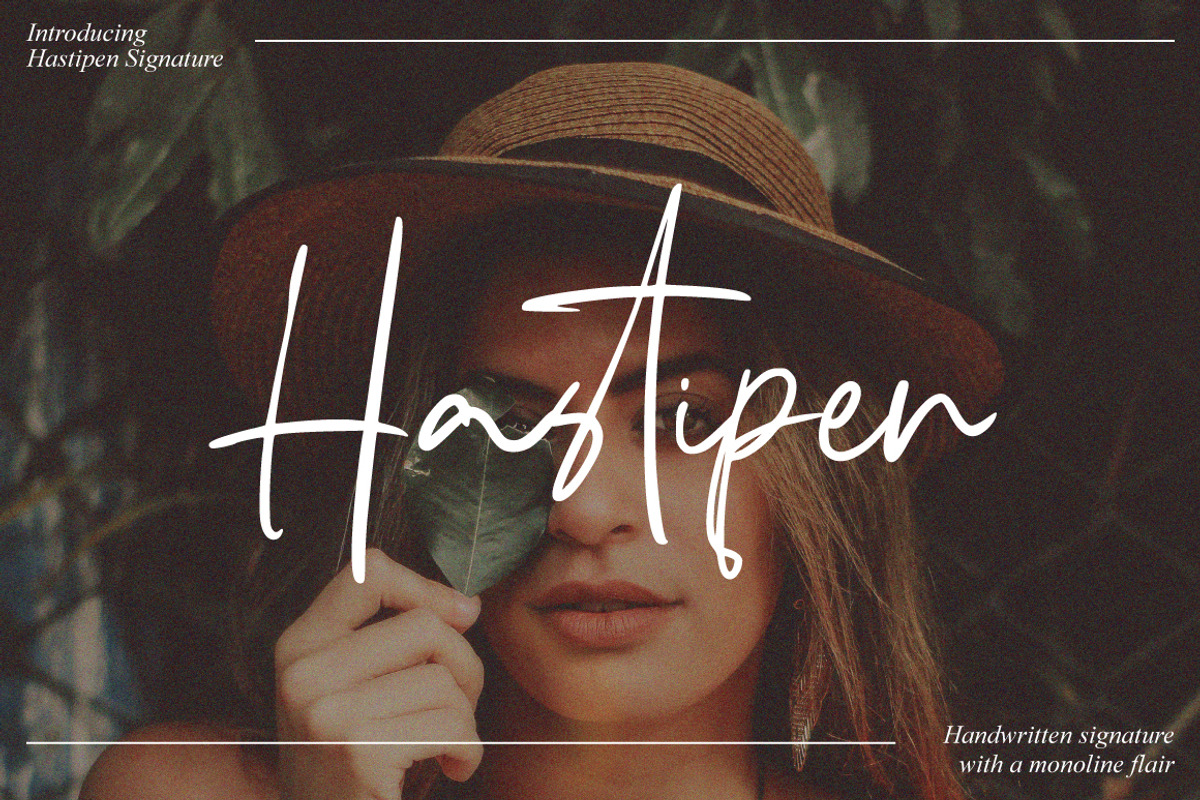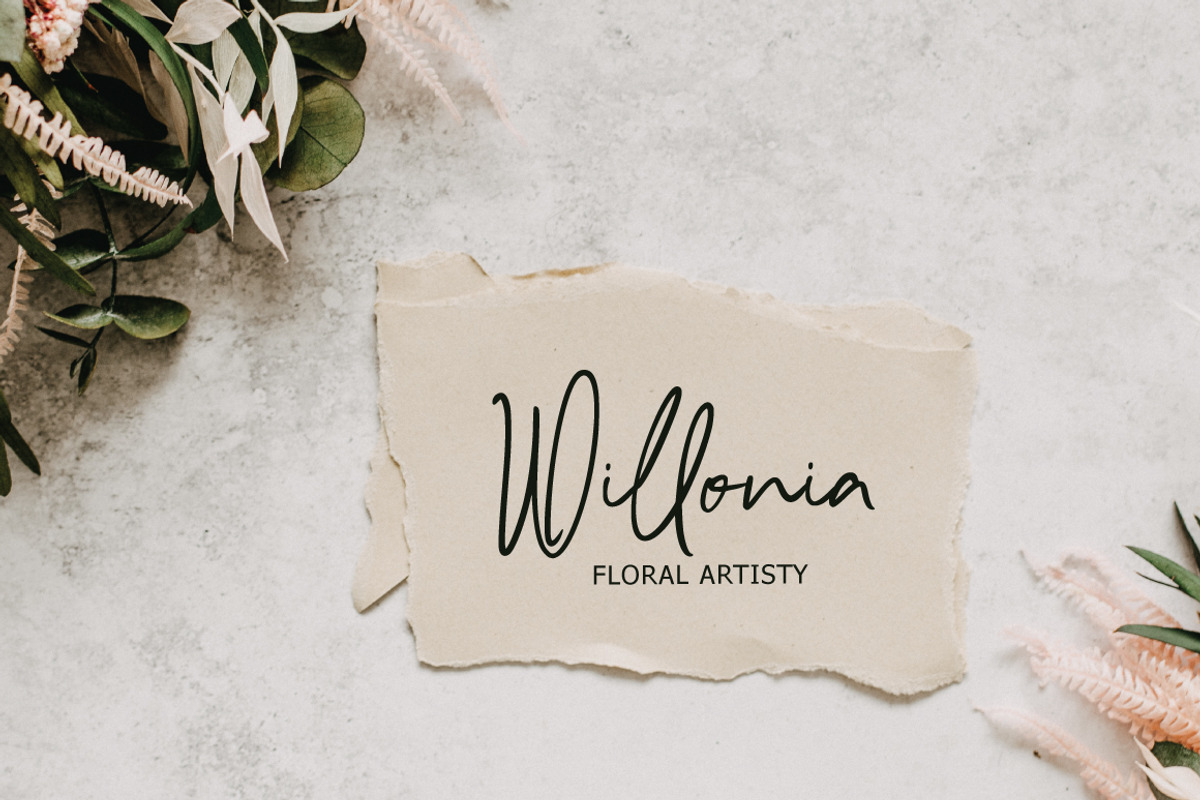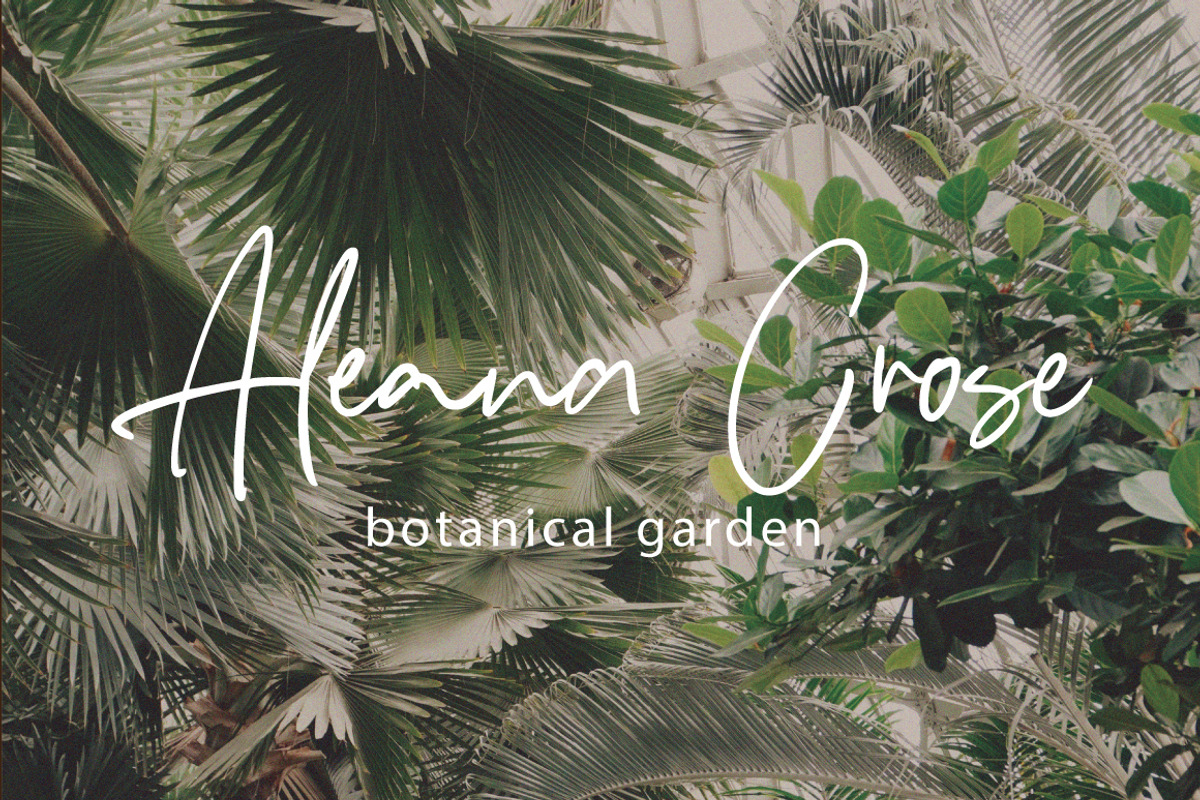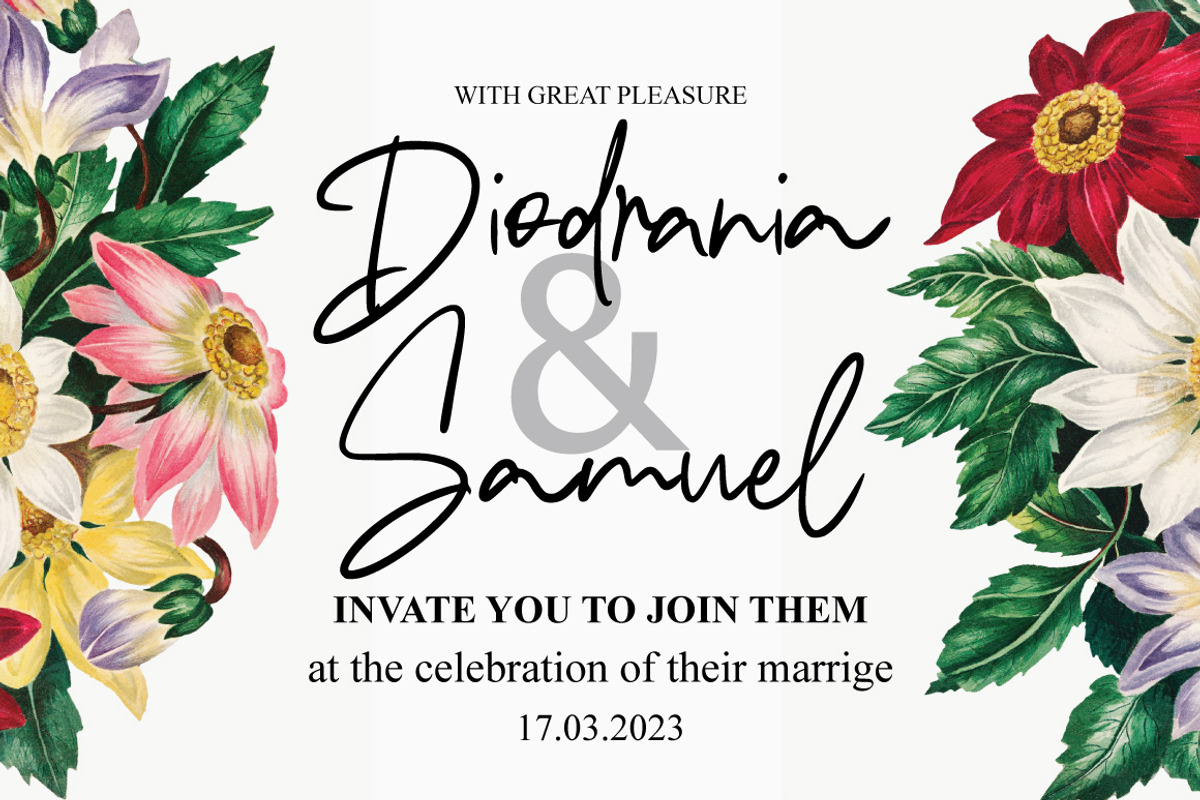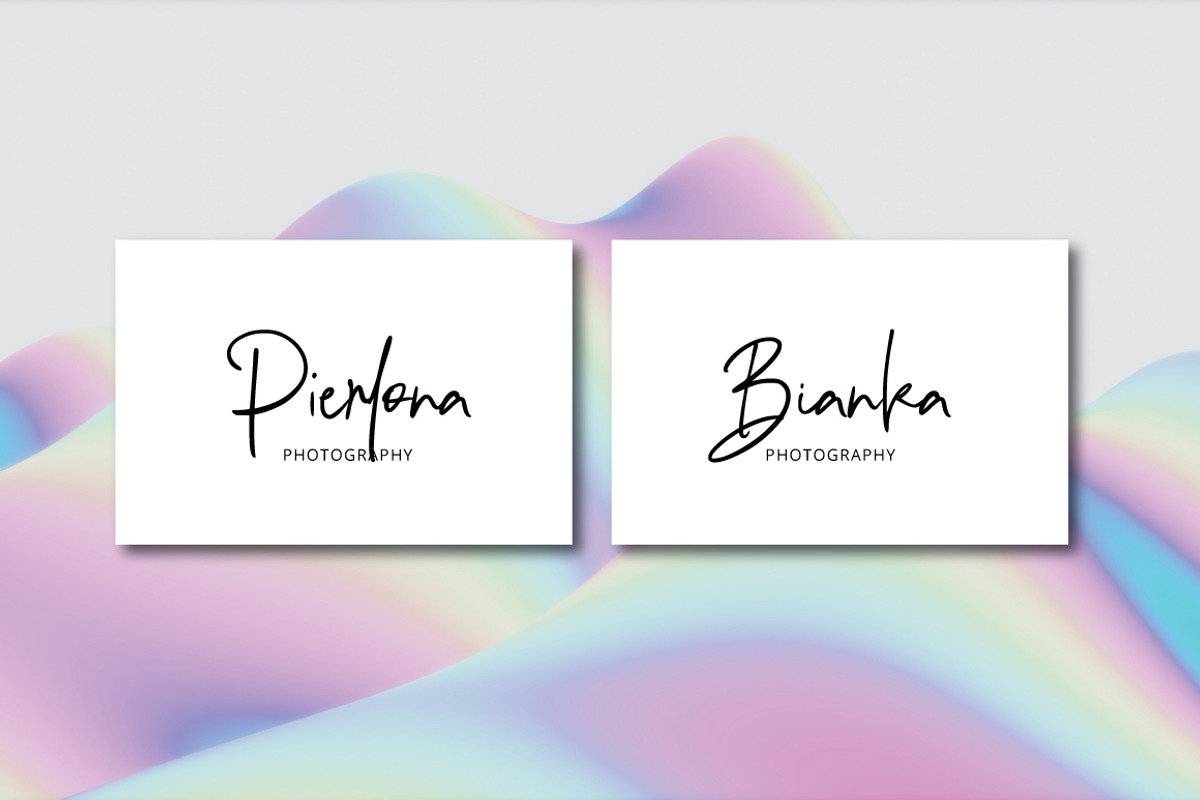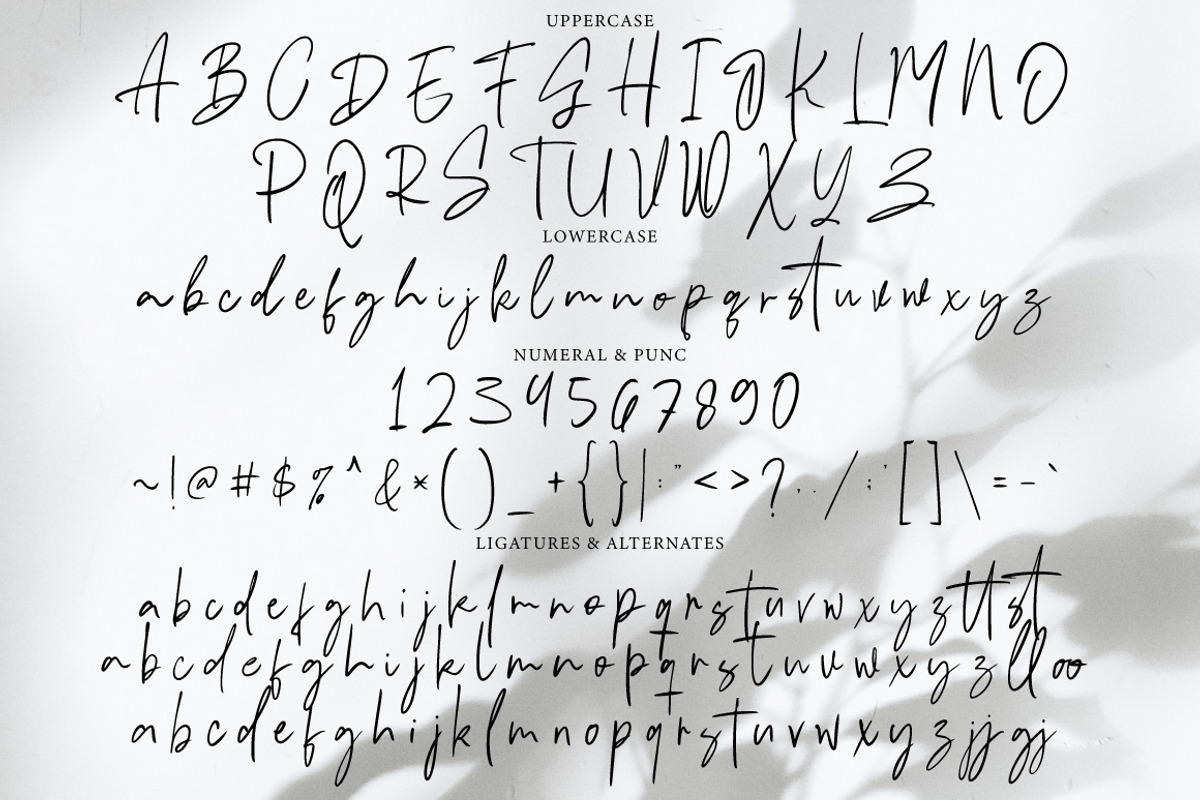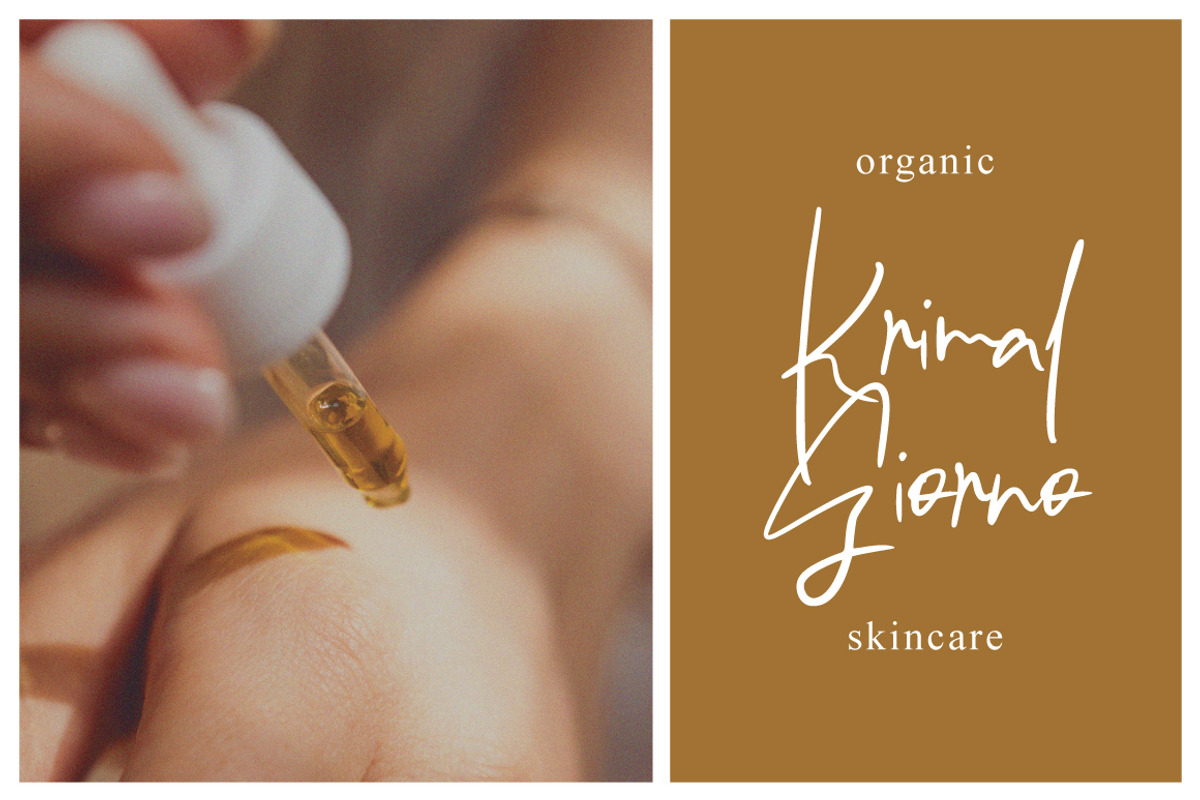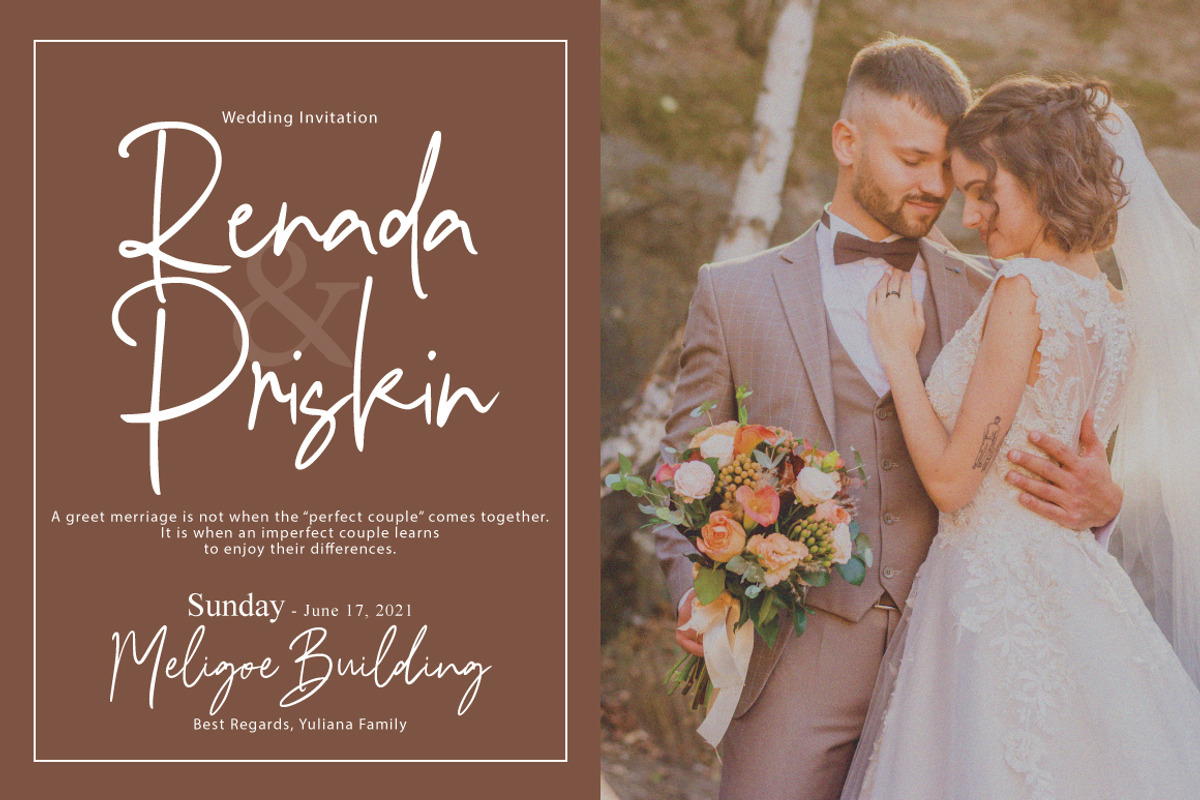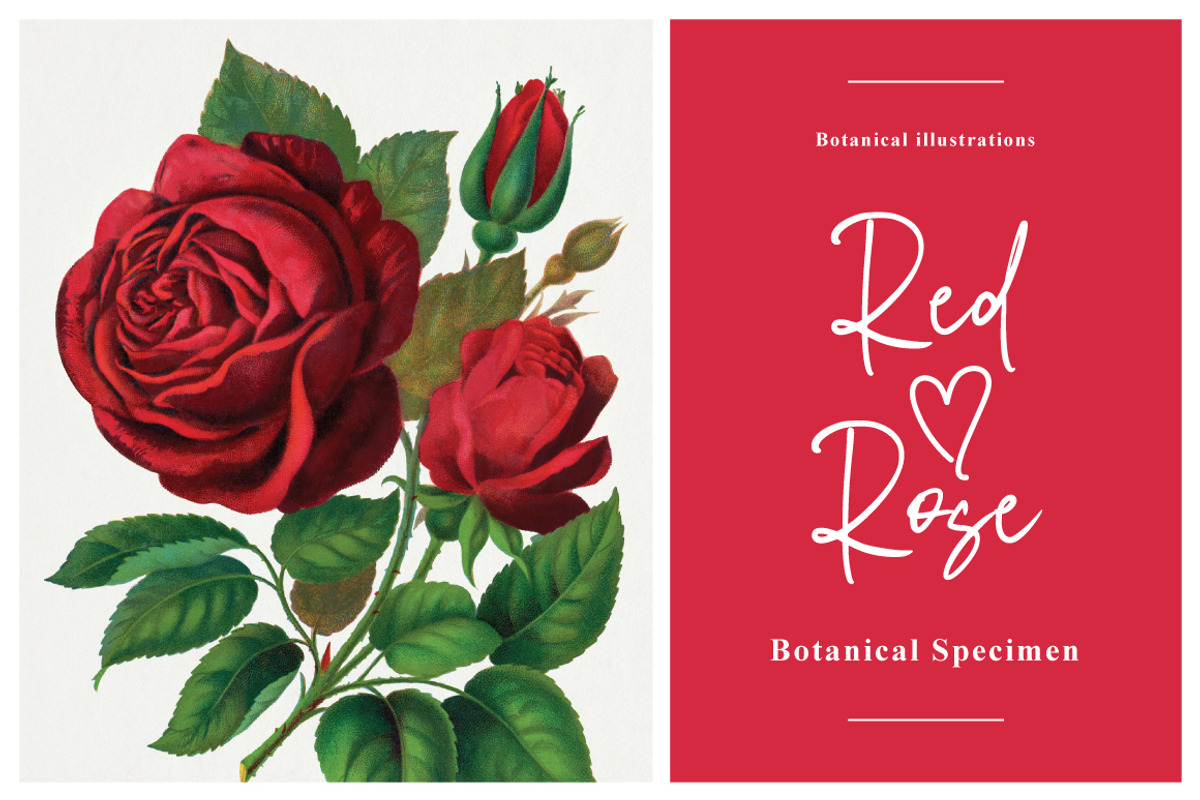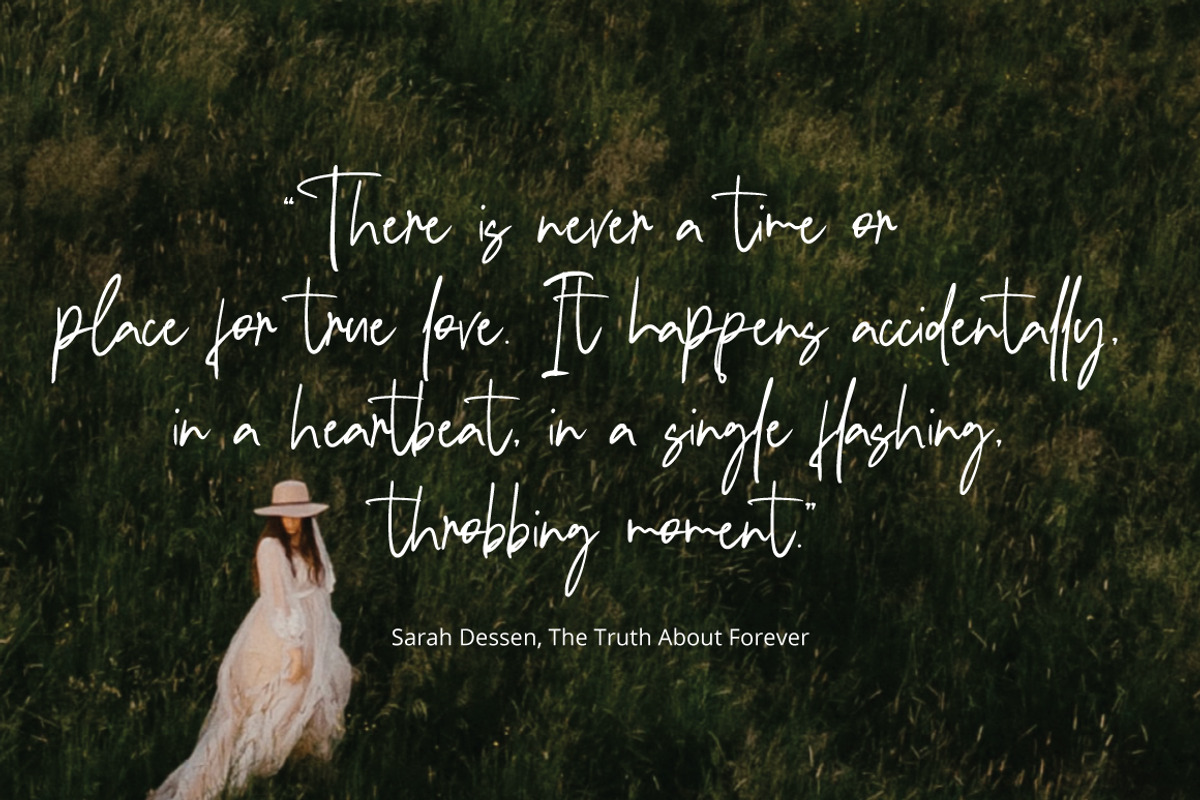
Hastipen - Handwritten Signature
Hestipen Signature with a handmade Signature style, decorative characters and a dancing baseline! So beautiful on invitation like greeting cards, branding materials, business cards, quotes, posters, and more!!
Hestipen Signature come with 200+ glyphs. The alternative characters were divided into several Open Type features such as Swash, Stylistic Sets, Stylistic Alternates, and Ligature. The Open Type features can be accessed by using Open Type savvy programs such as Adobe Illustrator, Adobe InDesign, Adobe Photoshop Corel Draw X version, And Microsoft Word. And this Font has given PUA unicode (specially coded fonts). so that all the alternate characters can easily be accessed in full by a craftsman or designer.
- include Basic Latin A-Z and a-z
- Stylistic Set
- Glyphs 200+